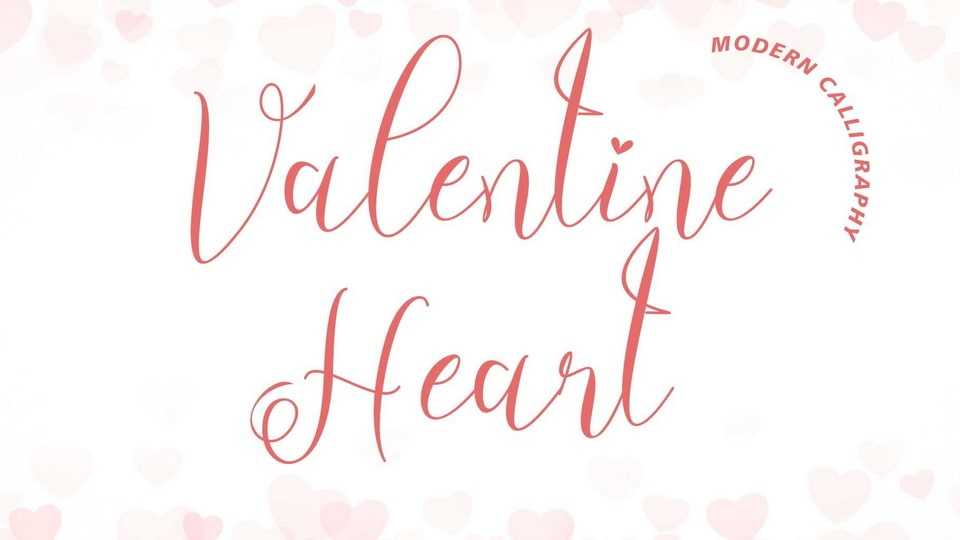
Download Valentine Heart font, a handwritten font that feels equally charming and elegant. It looks stunning on wedding invitations, thank you cards, quotes, greeting cards, logos, business cards and every other design which needs a handwritten touch.
Designer: Selvia Design